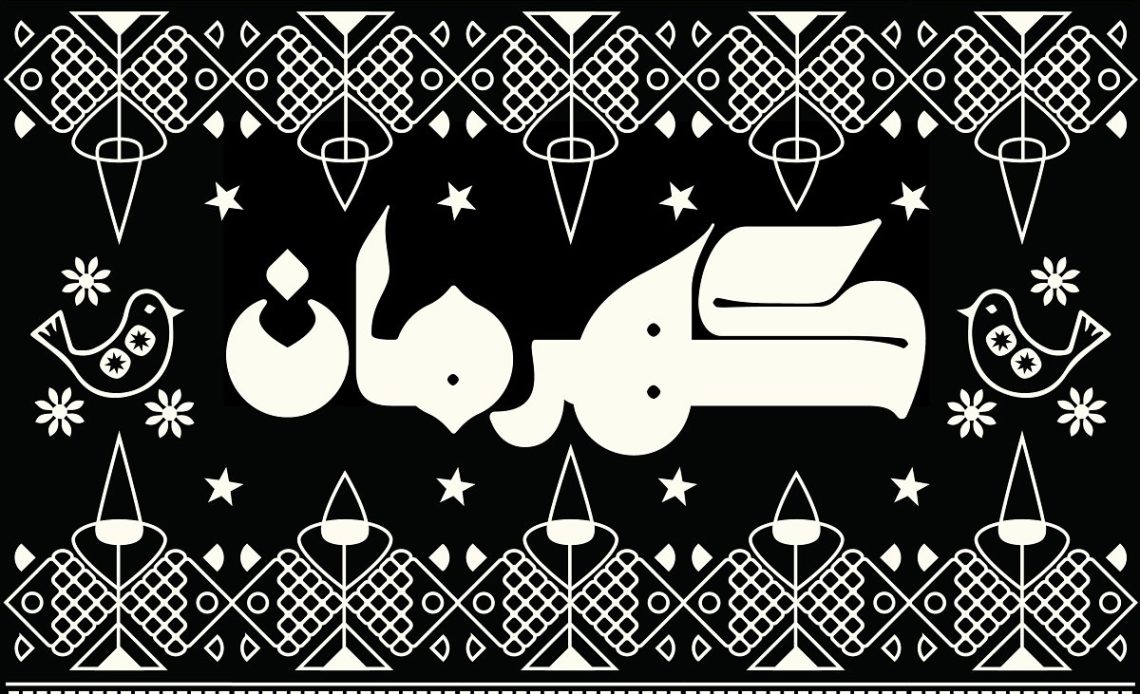
Introducing Kahraman - Arabic Font, the must-have script font for those looking to elevate their designs. This Best Font for Aliasing Display was created by the talented Mostafa Abasiry and is inspired by the magical folk tales of One Thousand and One Nights.
Kahraman Font features letterforms that are distinctively designed to match the illustrations found in tales, love stories, tragedies, comedies, and poems. Its unique style adds an emotional and creative touch to any project. With its spontaneous design, Kahraman Font is perfect for a wide range of uses including print, web design, and mobile applications.
As an Arabic display font, Kahraman is versatile and can be used in a wide range of projects. Its ability to add an Arabic flair to your designs makes it a must-have for designers and creatives. Whether you're designing an advertisement, a logo, or a product label, Kahraman will make your design stand out from the crowd.
The name Kahraman, which means "Amber" in Arabic, perfectly captures the warmth and beauty of this font. Its captivating and emotional qualities will make your designs come alive and leave a lasting impression on your audience.